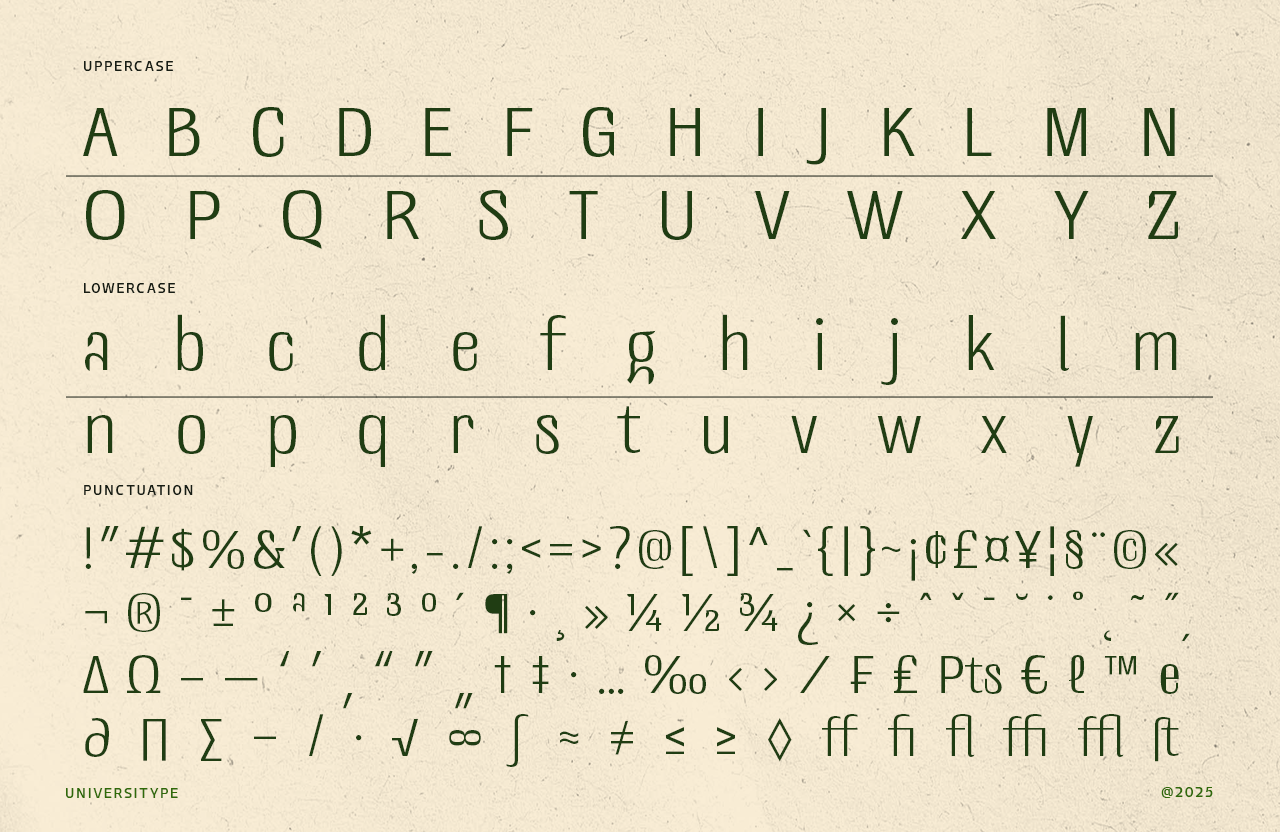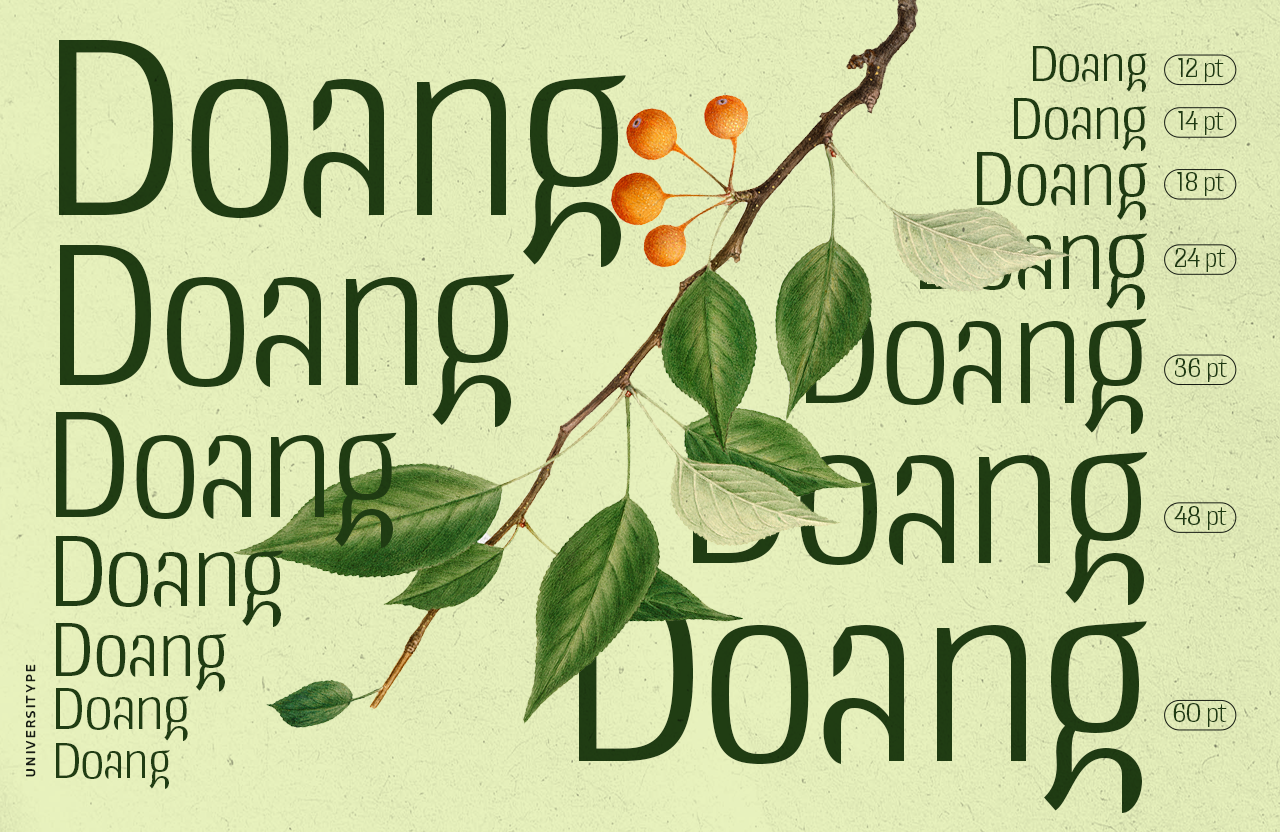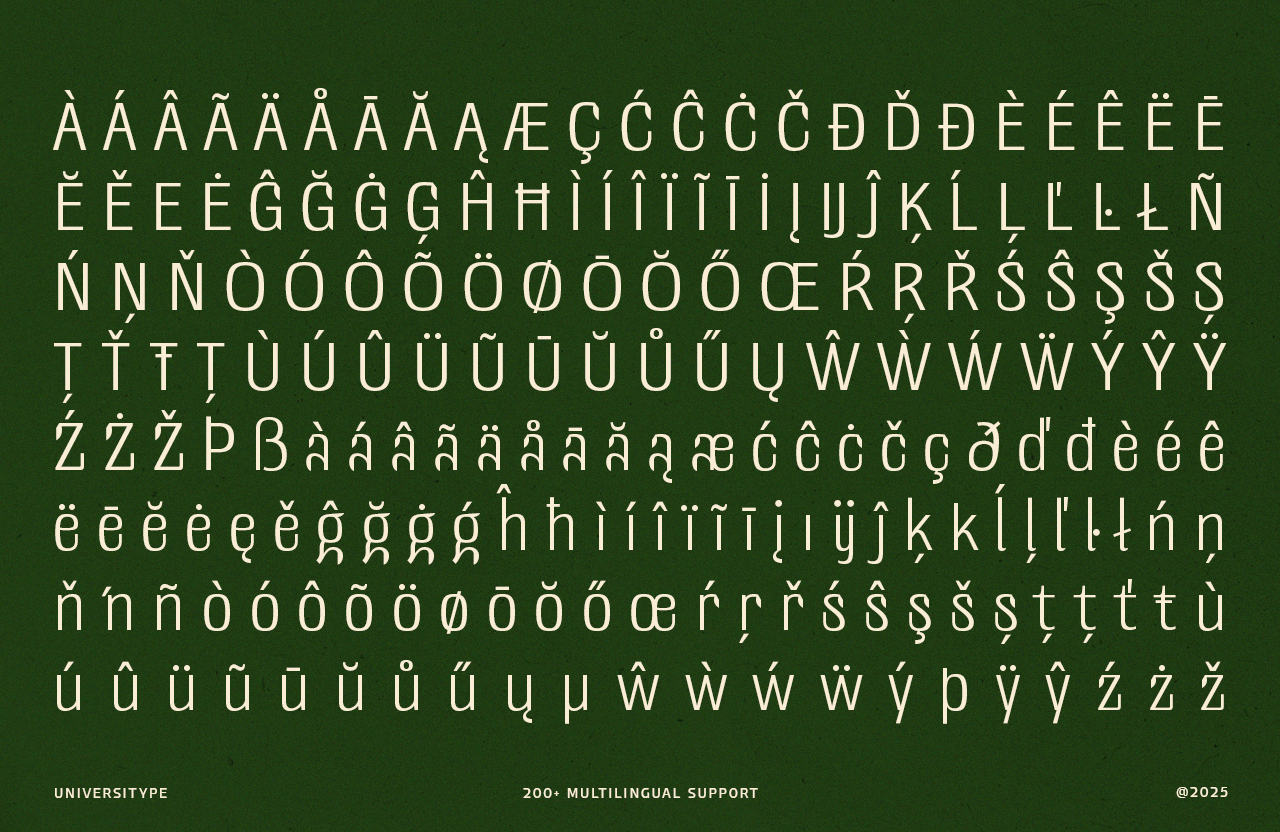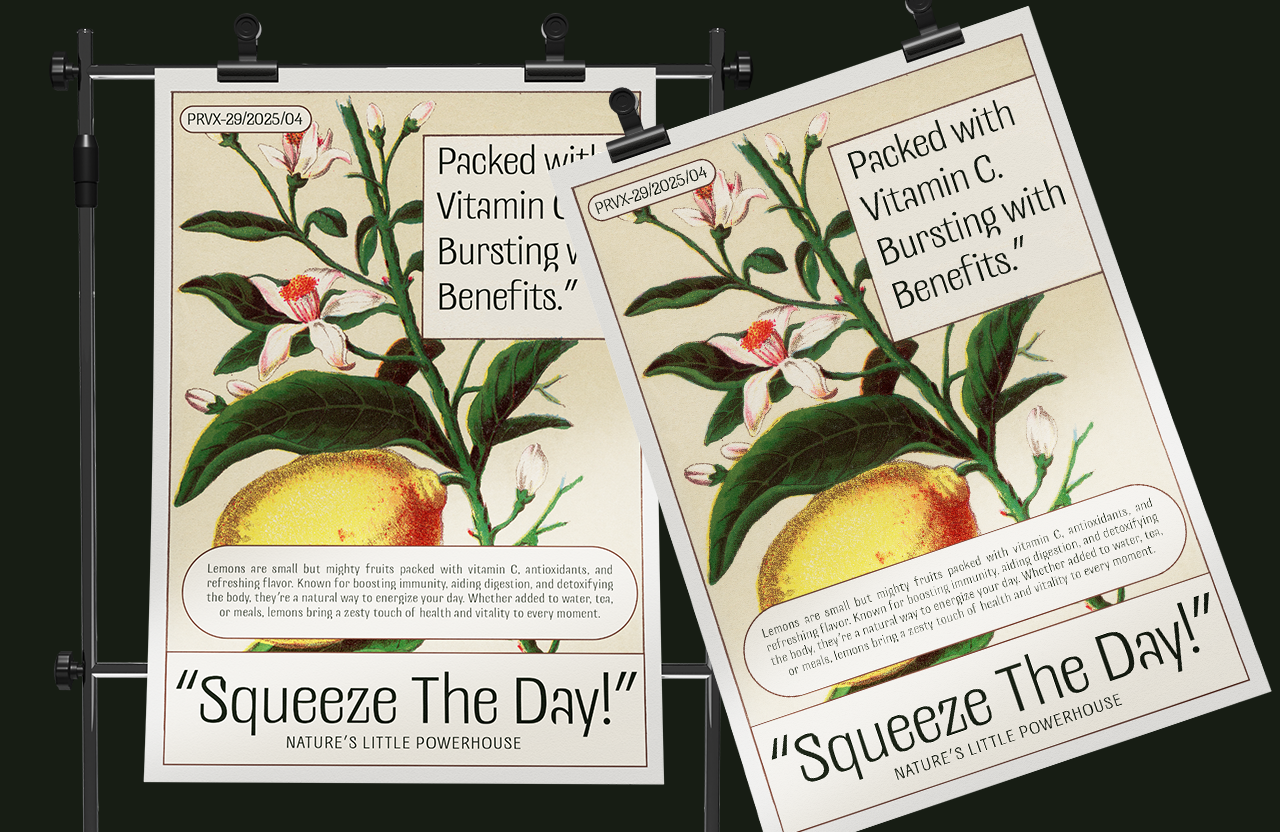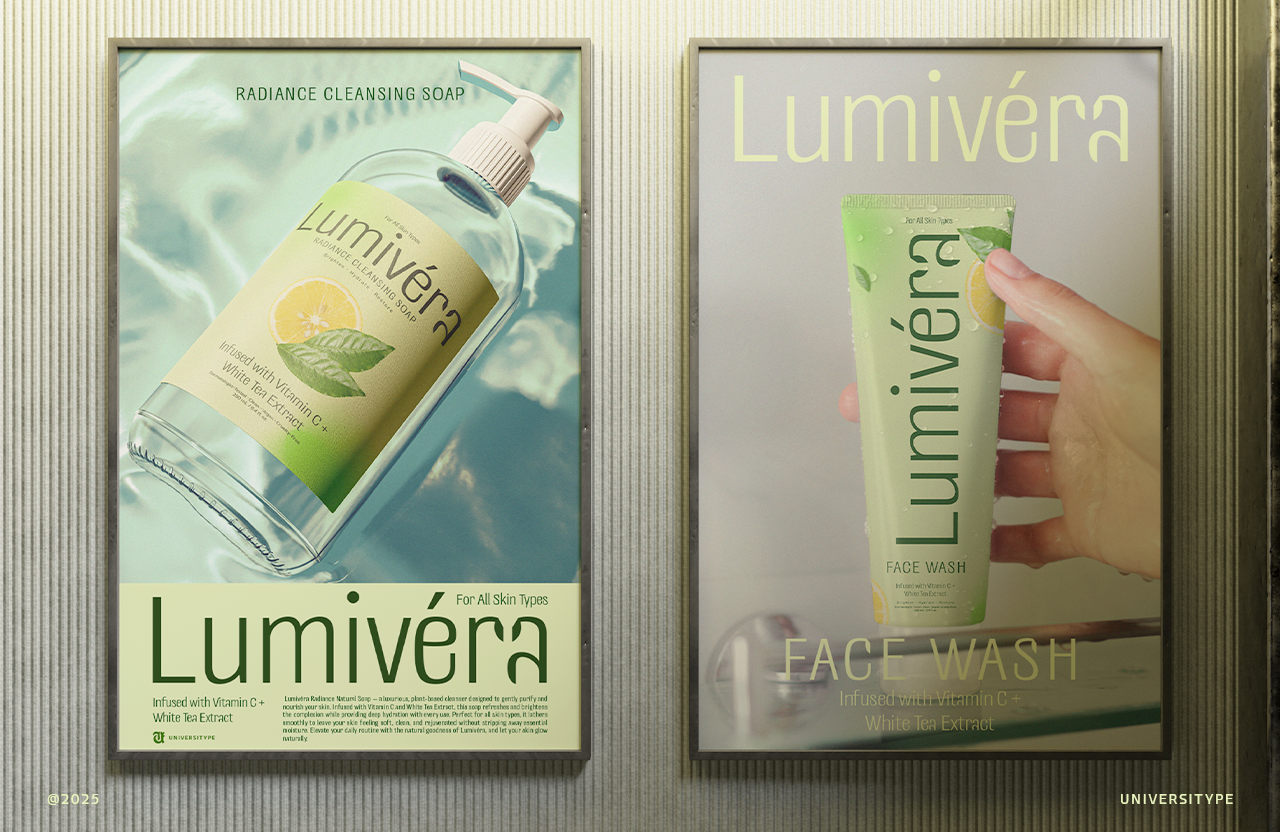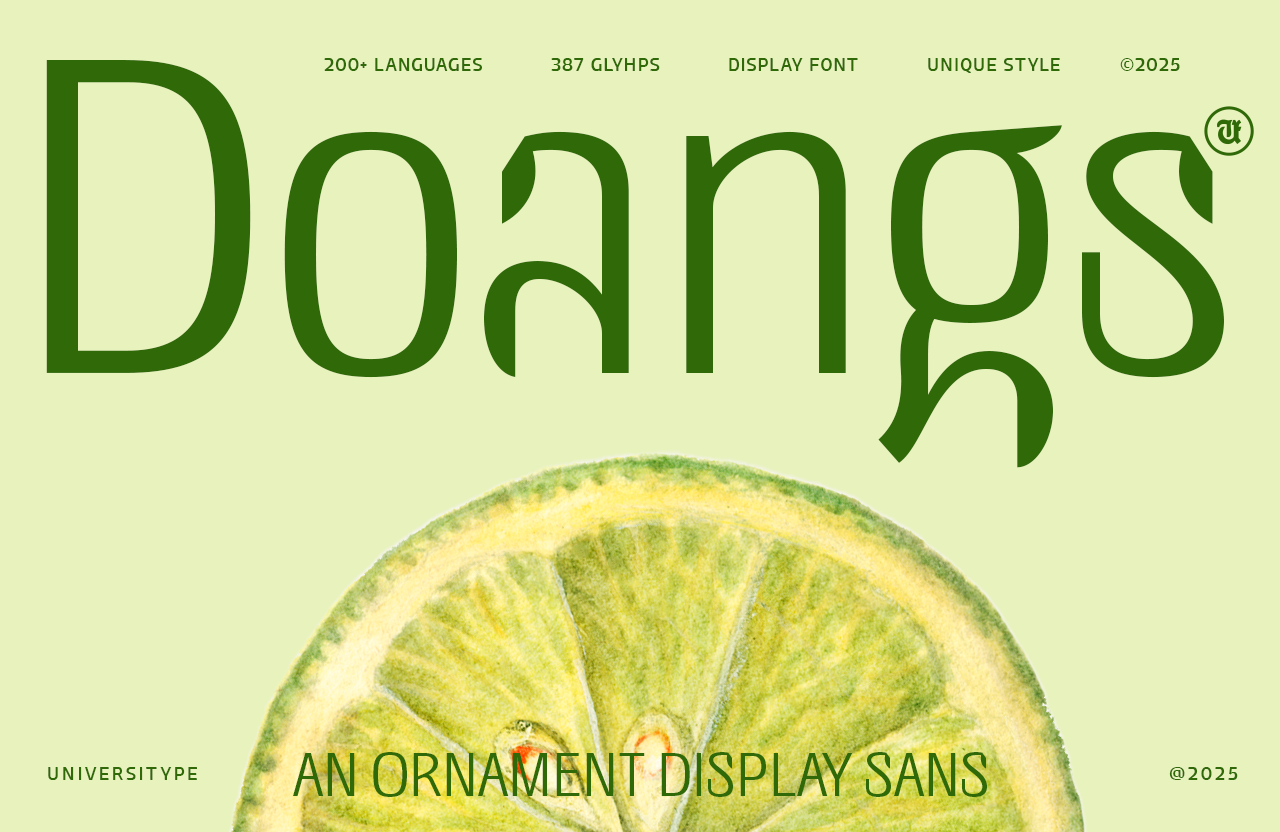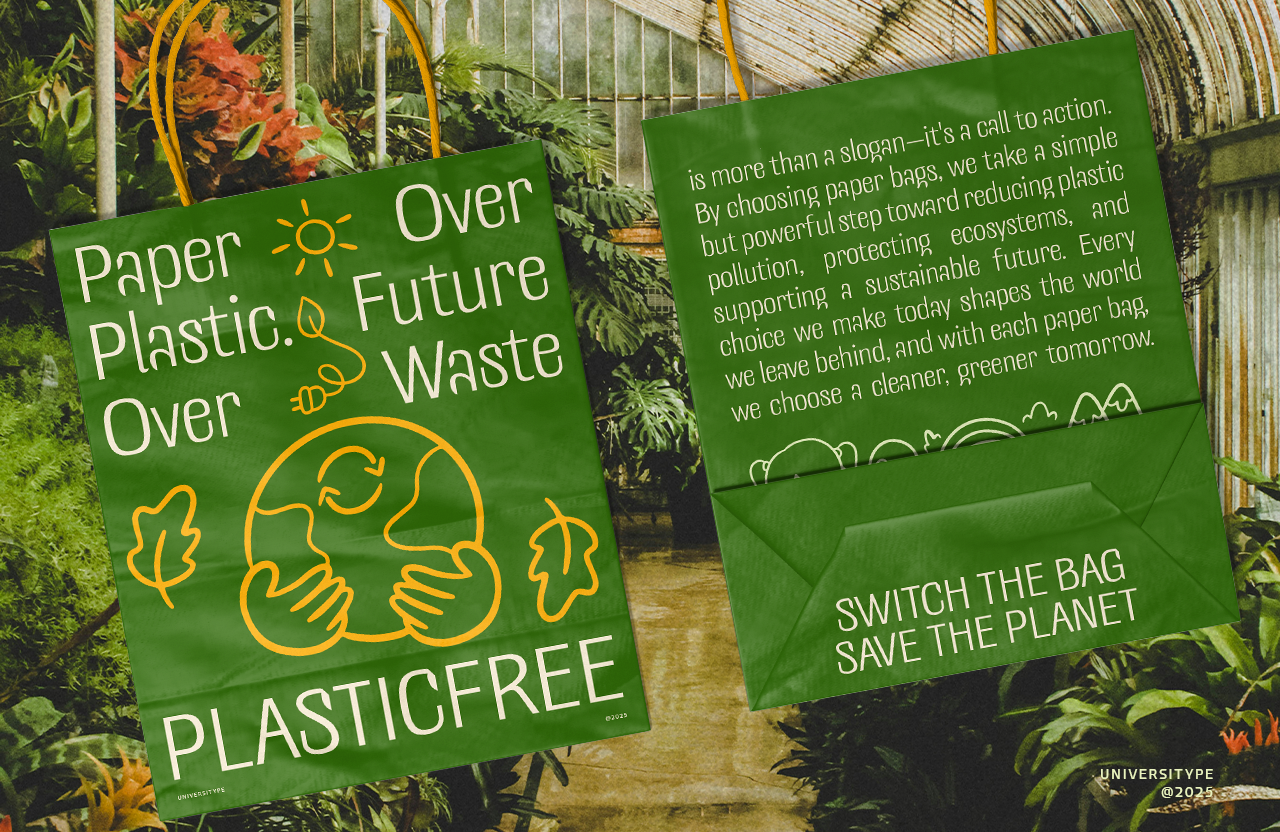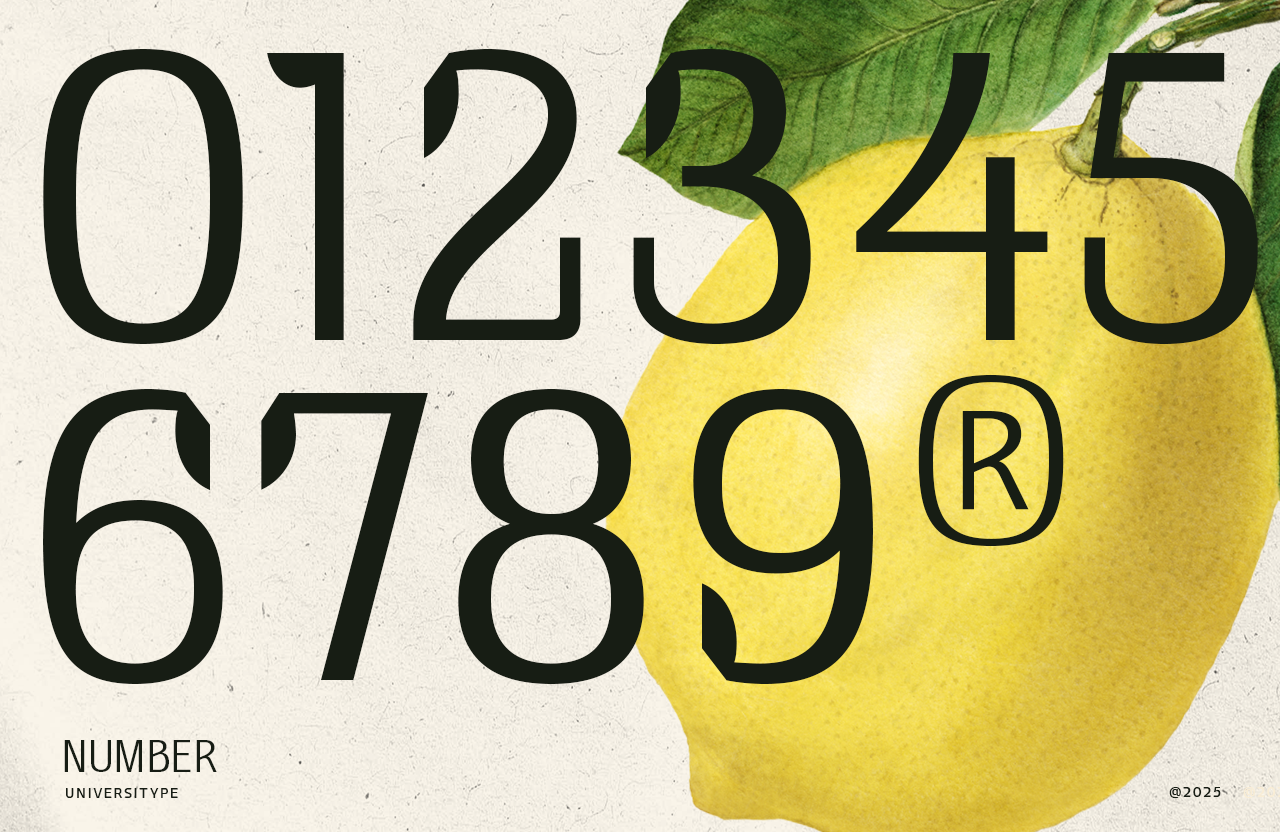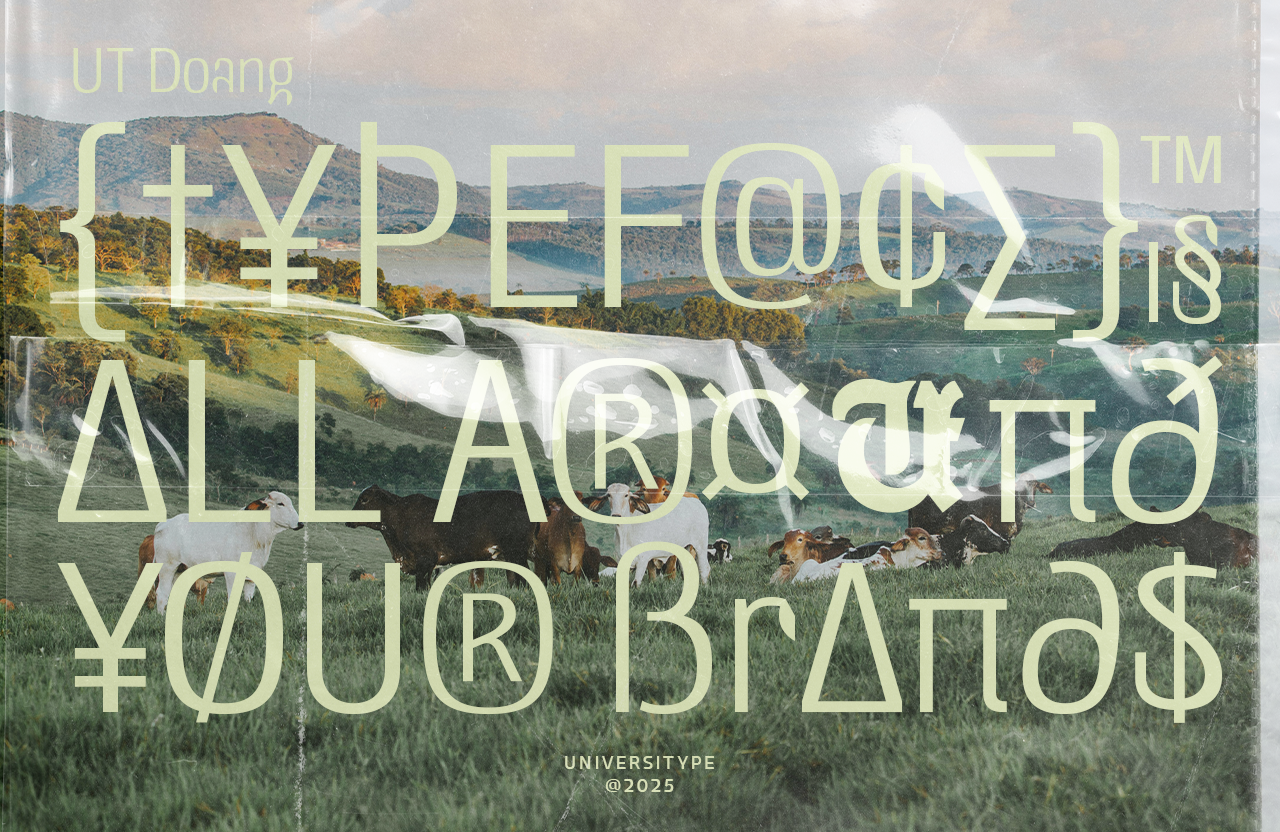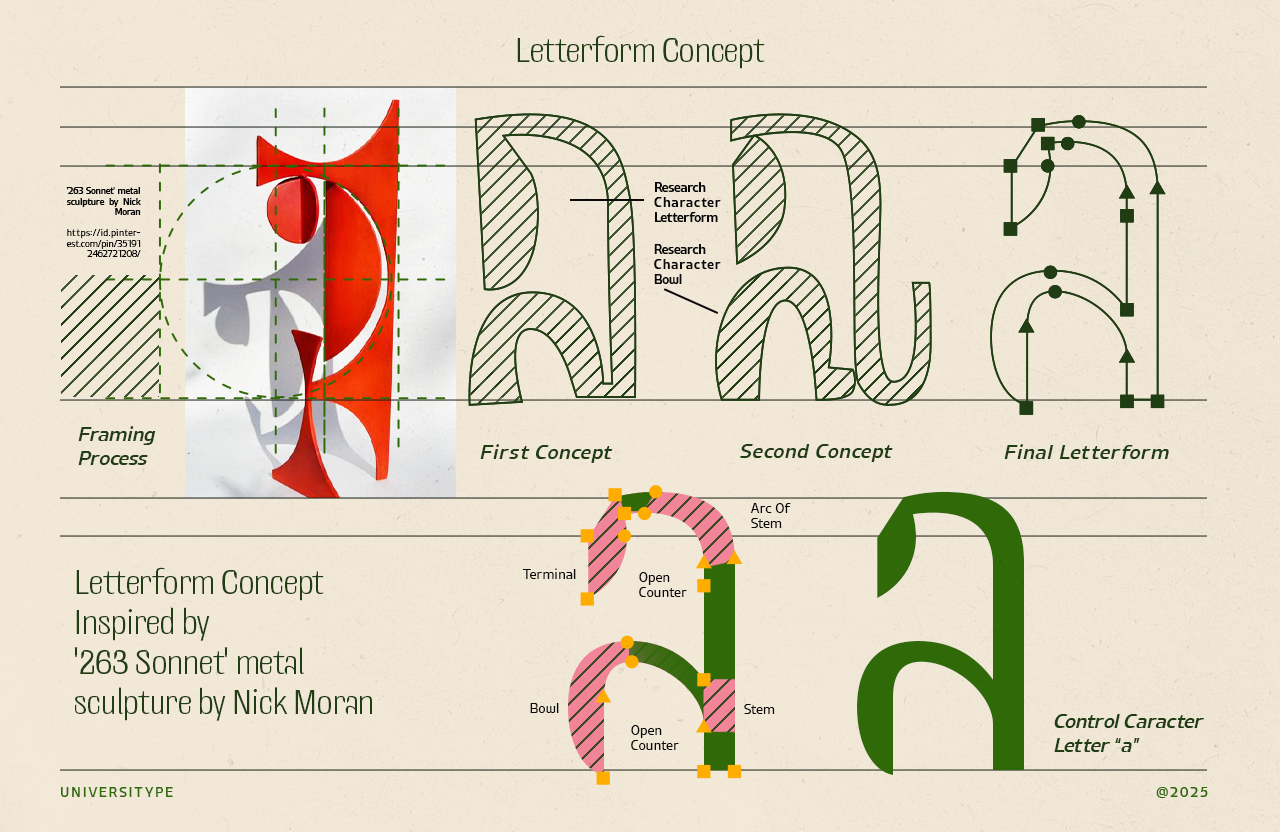
UT Doangs - An Ornament Display Font
Introducing the UT Doangs font- a striking fusion of typography and sculpture. This dynamic display typeface sources its inspiration from the essence of industrial art. It beautifully illustrates the elegant flex and tension of molded steel in the shape of alphabets. The unique, flowing asymmetry and heartening handmade impression of UT Doangs are specially designed for creative minds longing to leave a mark.
Whether it's for editorial layouts, posters, branding, album covers, or crafting an impressive visual identity, UT Doangs effortlessly merges the realms of art and typography. With its single weight, regular (Display), the font harmonizes uppercase & lowercase characters and punctuation & symbols, delicately spaced and kerned to enhance headline readability. Plus, it provides multilingual support (200+ Latin-based languages) and innovative OpenType features.
Why UT Doangs? The design is a tribute to Nick Moran’s "263 Sonnet" sculpture, a minimalist steel structure encapsulating both tension and elegance. This piece's capacity to marry raw industrial medium with a gentle, lyric touch sparked the conception of this typeface. Every curve, void, and the negative space in the artwork seemed like a prototype waiting to be transformed into a character of the alphabet.
Designing UT Doangs involved sketching over the sculpture’s silhouette, sourcing rhythmic gestures, and metamorphosing them into symbols with a distinct character and purpose. More than just a font, UT Doangs signifies structure, movement, and an engaging tactile tale. It’s not just a typeface, but a visually aesthetic salute to the skill of sculpting materials with purpose and emotion.